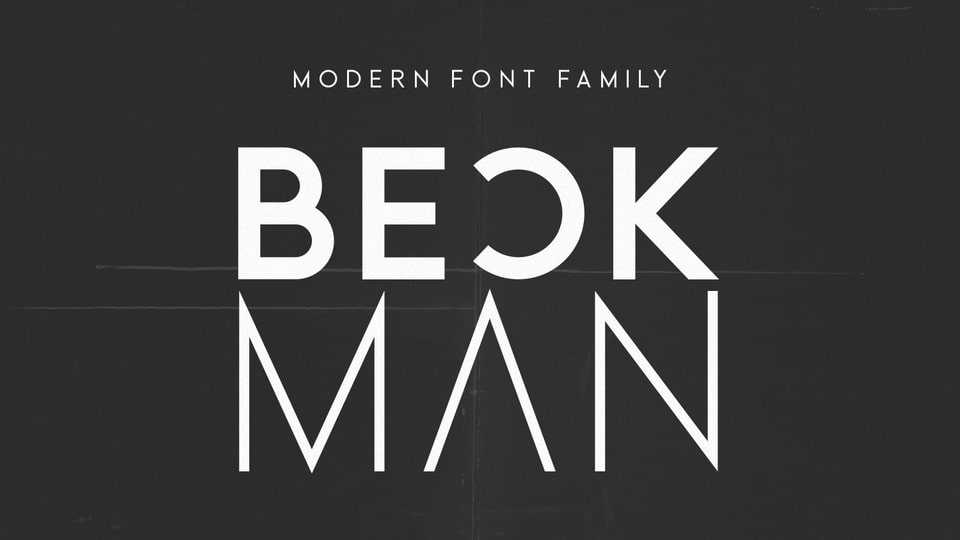
Download Beckman font, a modern and minimalist sans serif typeface. With combination of minimal and geometric elements Beckman font renders a modern design.
Designer: Factory Type